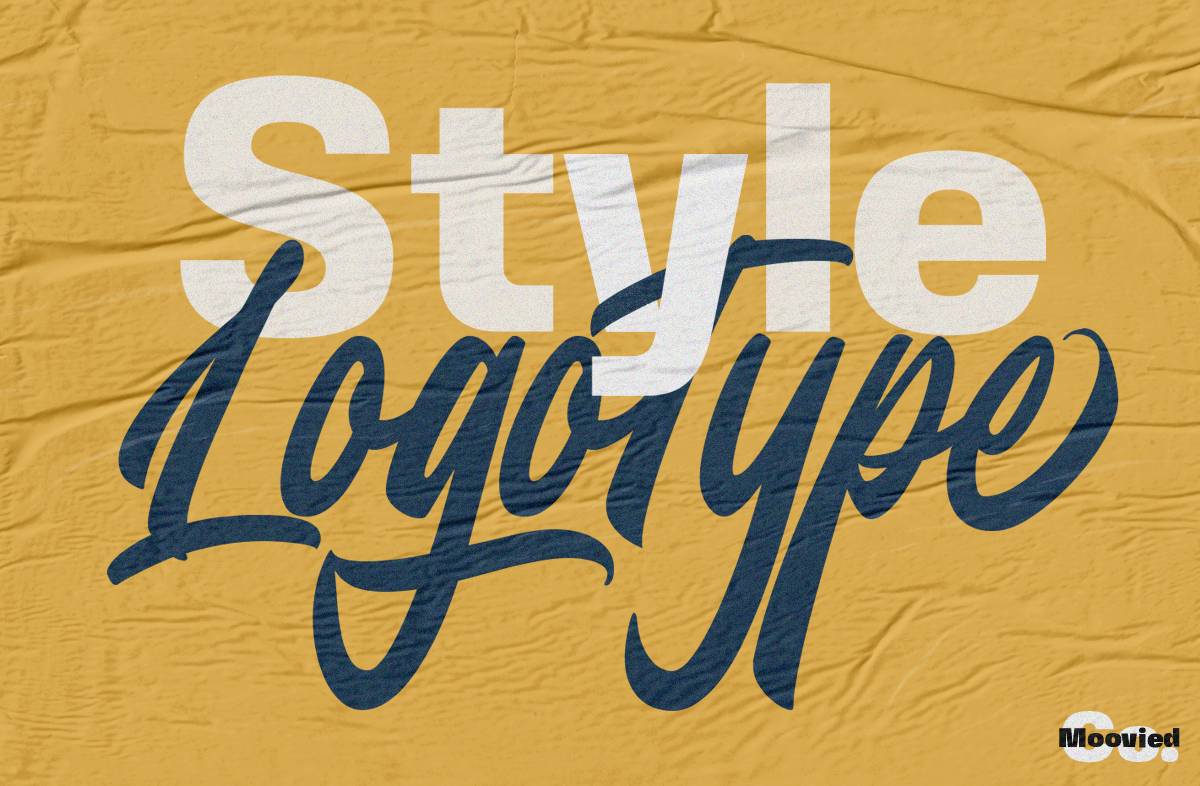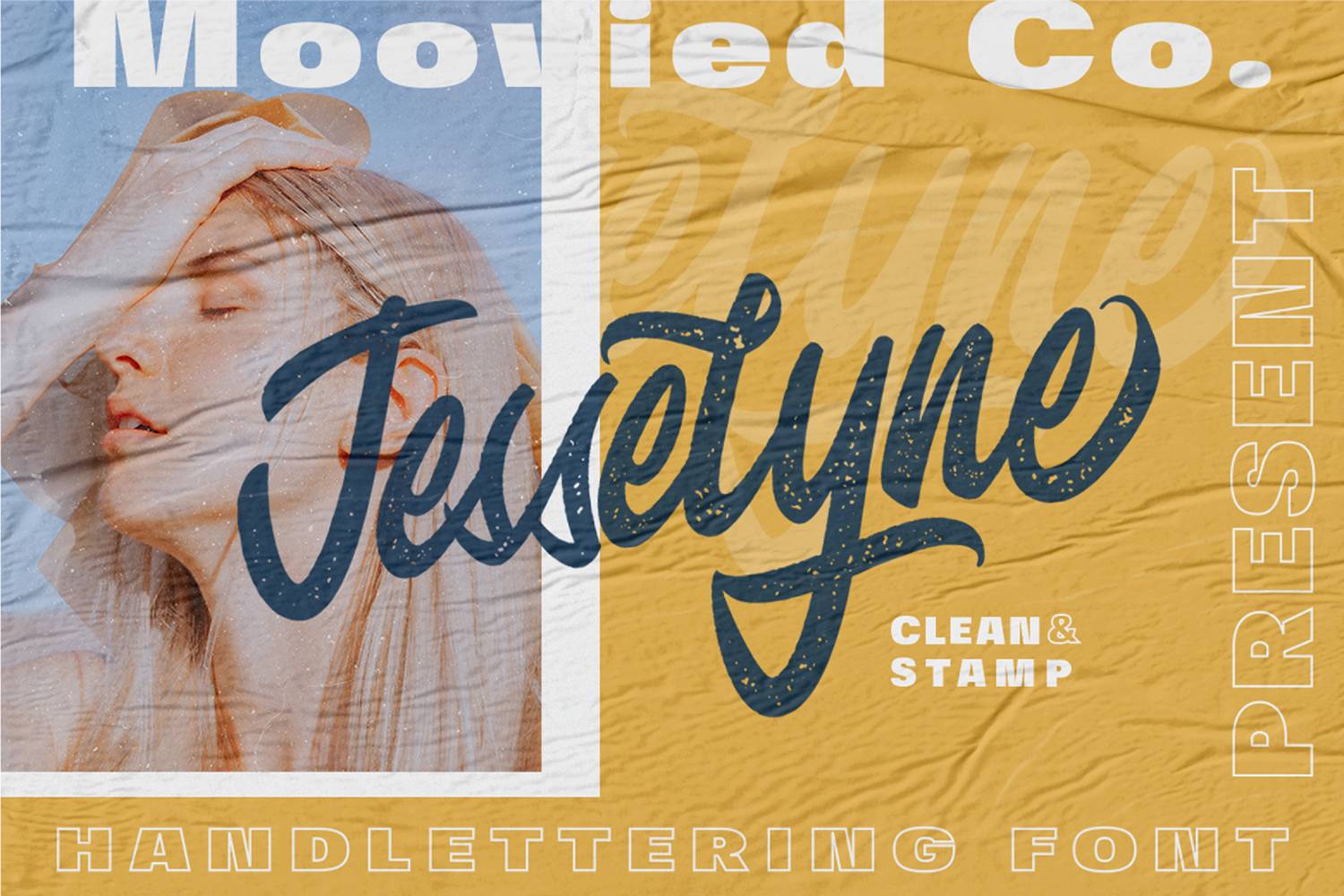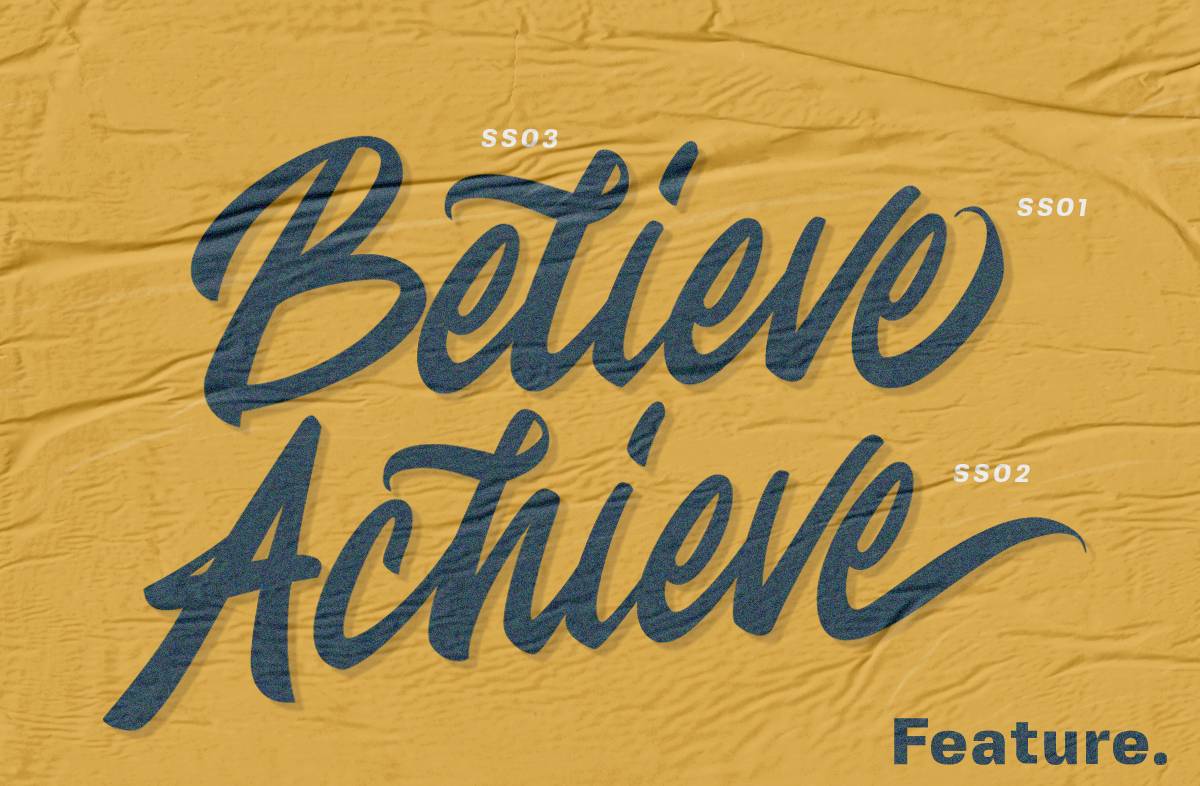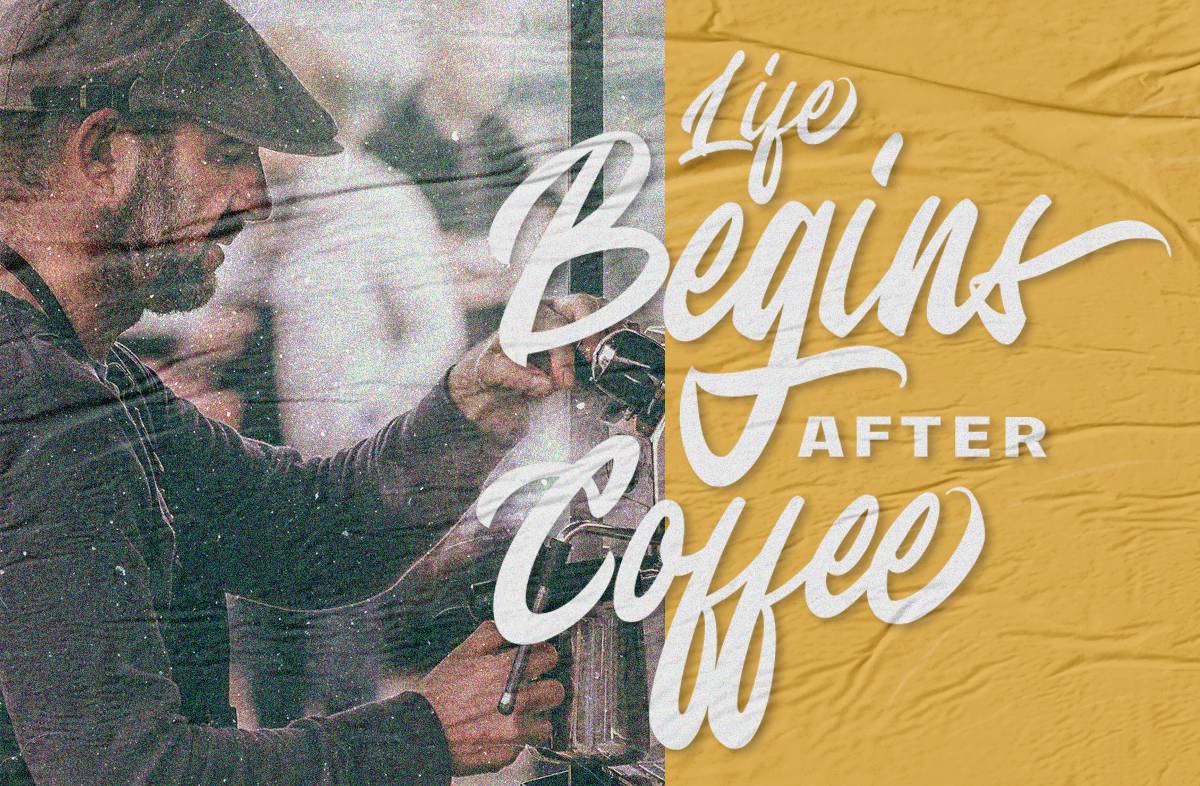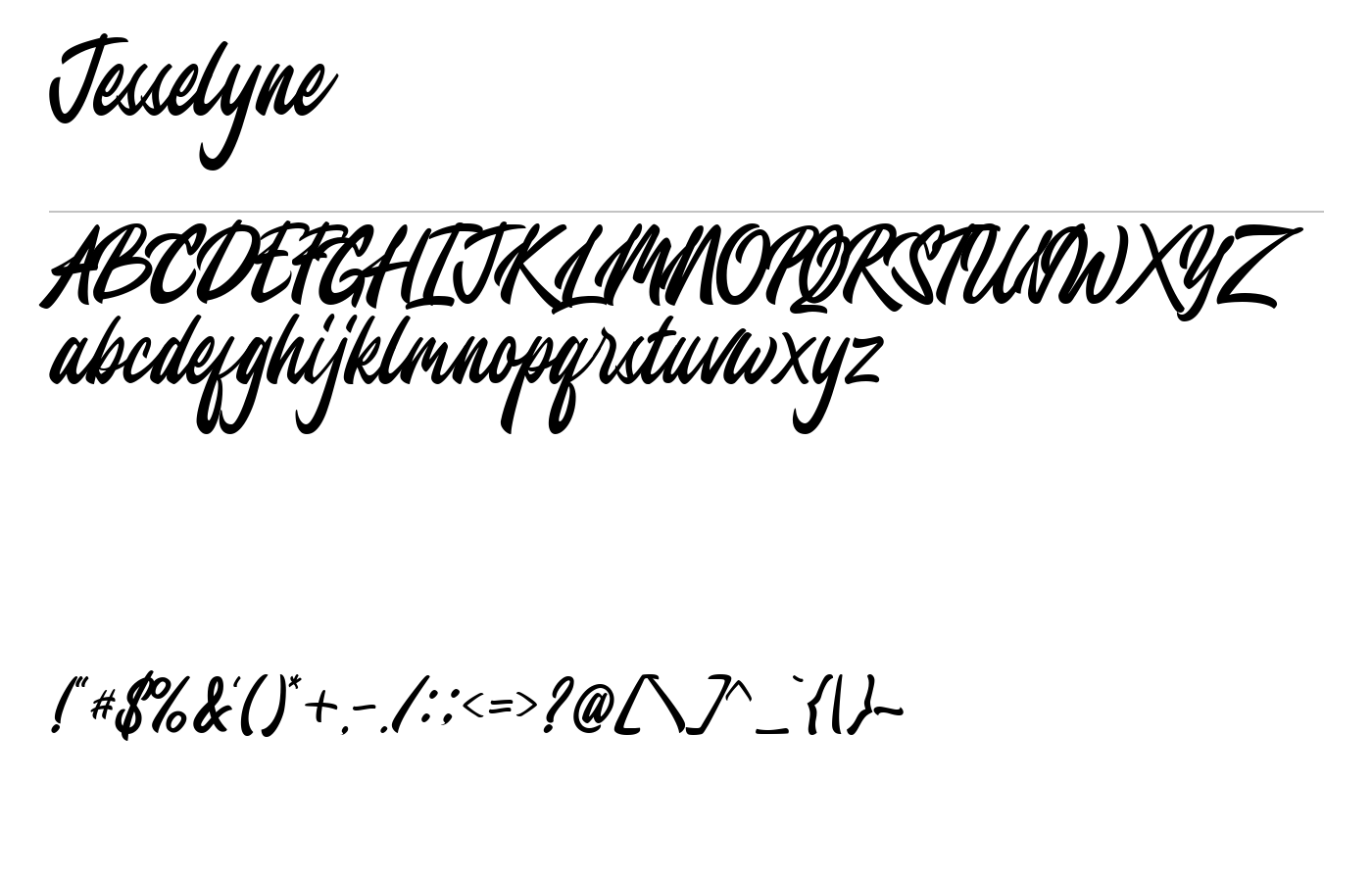
Jesselyne Script is a lively and bold handwritten font that combines energetic brush strokes with a casual elegance. Its dynamic, slightly compressed letterforms and smooth curves give it a friendly yet confident personality, making it perfect for creative branding, invitations, and striking headlines where a modern, personal touch is desired.
Jesselyne Script Font
About Jesselyne Script Font
| Font family | Jesselyne Script Font |
| Designer | Egi Ahmad Mufid |